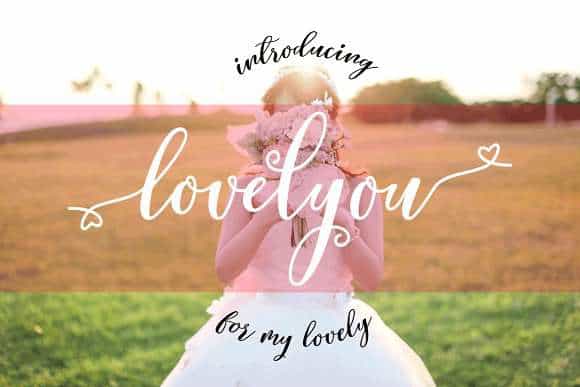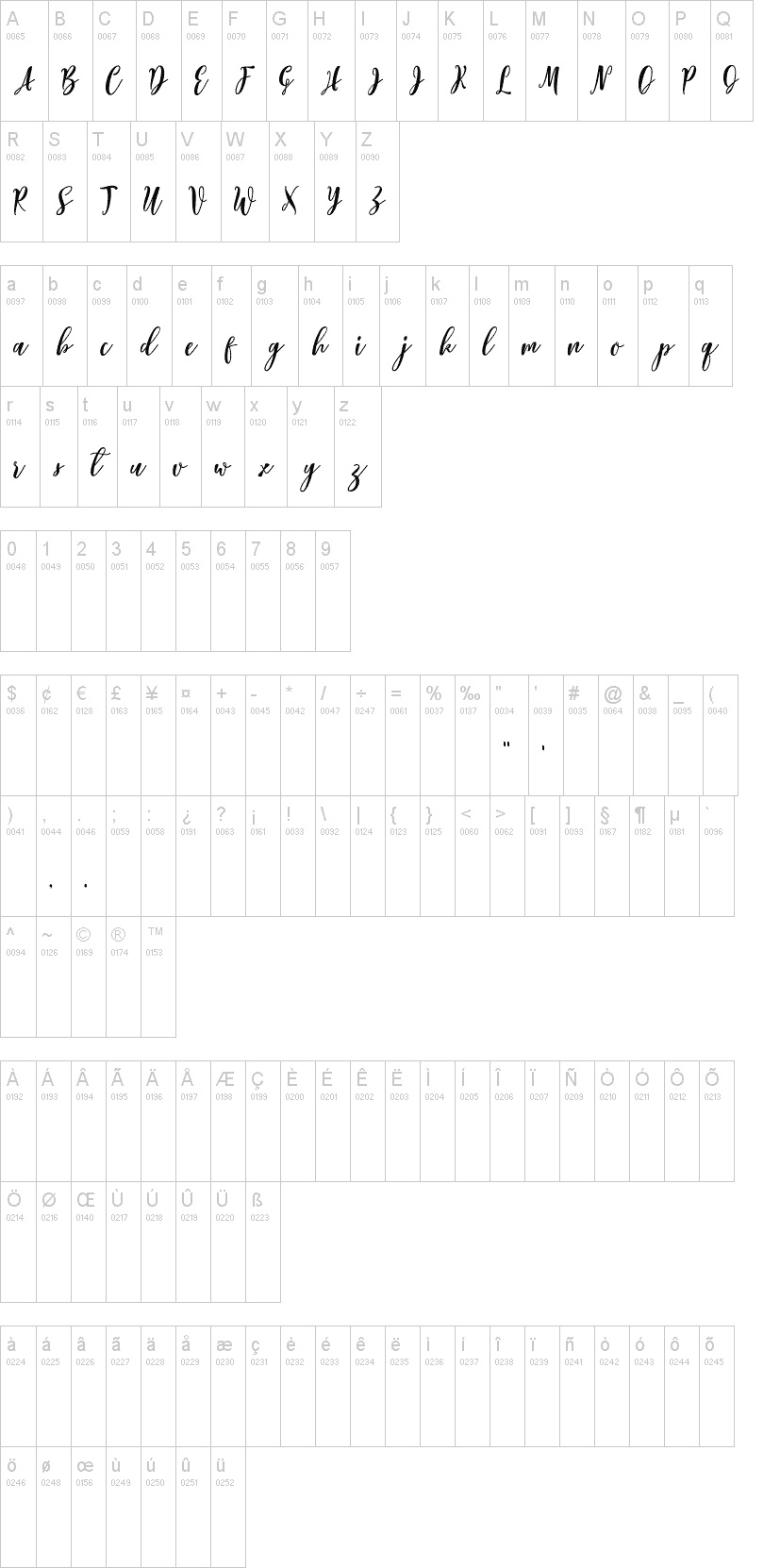
Lovelyou is an exquisite font for Calligraphy that has been designed by Fadhil Aqsa and it is available for download and use as long as it is for personal use. The free version for instance has got all the alphabets both small and big and a few more signs.